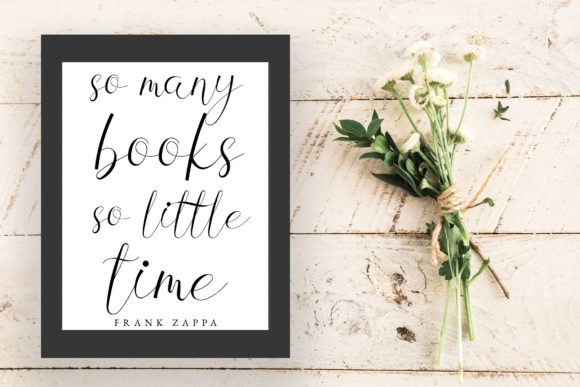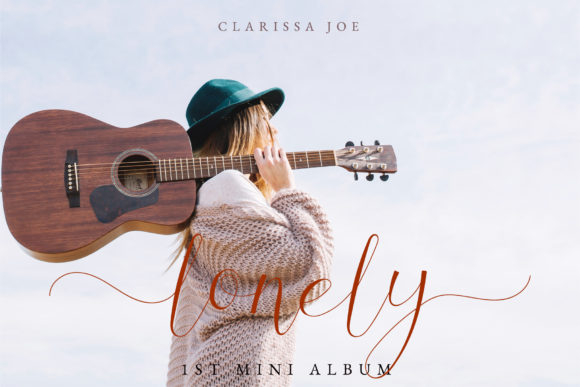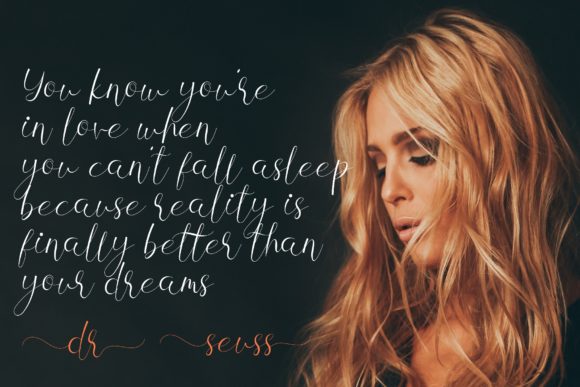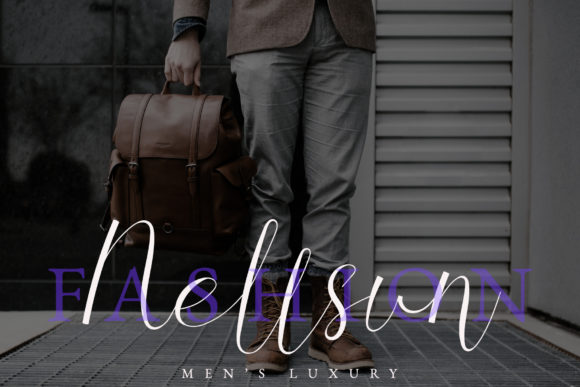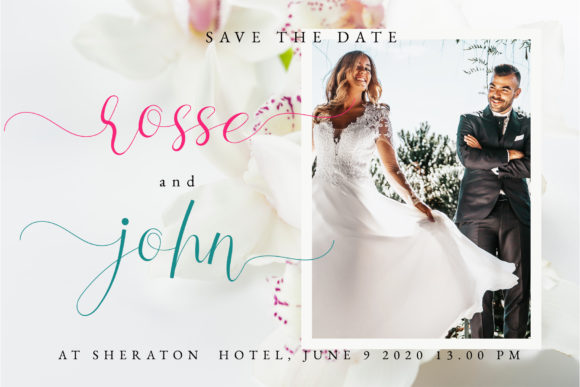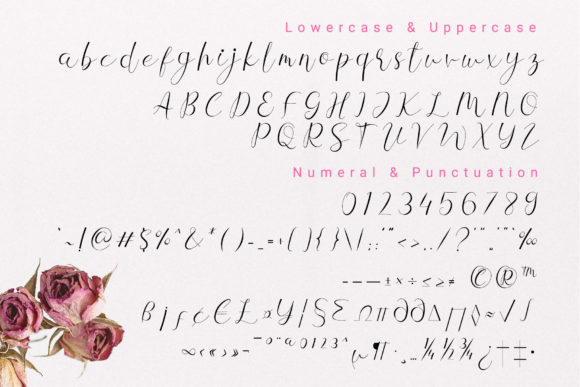
Introduction to Maretha Chellia Font
As a designer, there’s nothing quite like the thrill of bringing a creative project to life. It’s the moment when all the pieces come together, and your vision finally takes shape. For me, that moment often starts with the perfect font – and that’s where Maretha Chellia Font comes in.
This stunning calligraphy font has been a game-changer for designers looking to add a touch of elegance to their work. With its gorgeous swashes and ligatures, Maretha Chellia Font is the perfect choice for any design project that requires a personalized appearance. Whether you’re working on a logo, a wedding invitation, or a marketing brochure, this font is sure to make your design stand out.
Honest Review: Maretha Chellia Font
As a designer, I’ve had the opportunity to work with numerous fonts, and I must say, the Maretha Chellia Font has left a lasting impression on me. I was initially drawn to its elegant and sophisticated design, making it perfect for any creative project.
Here are some aspects that I appreciate about the Maretha Chellia Font:
- ✨ High-quality design that exudes sophistication and elegance.
- ✨ The font is incredibly versatile and can be used for a wide range of creative projects, from magazine titles to branding.
- ⚠️ The font may not be ideal for projects that require a transparent background, as it can be quite bold.
- ⚠️ Some users may find the font’s complexity overwhelming, especially when used in conjunction with other design elements.
Overall, I’m thoroughly impressed with the Maretha Chellia Font. Its high-quality design, versatility, and free download option make it an excellent resource for any designer looking to elevate their creative project. While it may have some limitations, I believe it’s a valuable addition to any design library.
Maretha Chellia Font is a high-quality design resource ideal for creative projects that require a touch of elegance and sophistication. With its unique style and transparent background, this font is perfect for designers looking for a versatile and modern look.
Maretha Chellia Font is ideal for various design projects such as logos, business cards, brochures, and social media graphics. Its unique style and transparent background make it perfect for creative projects that require a touch of elegance and sophistication.